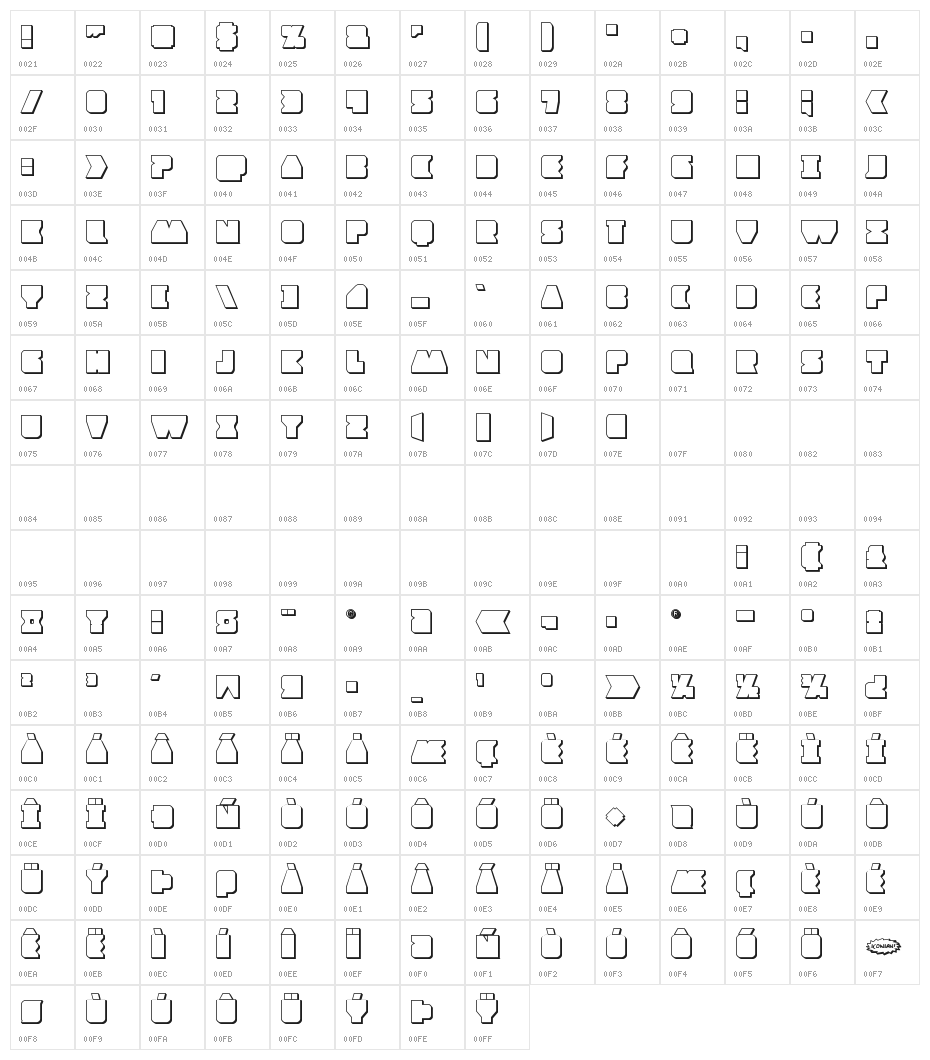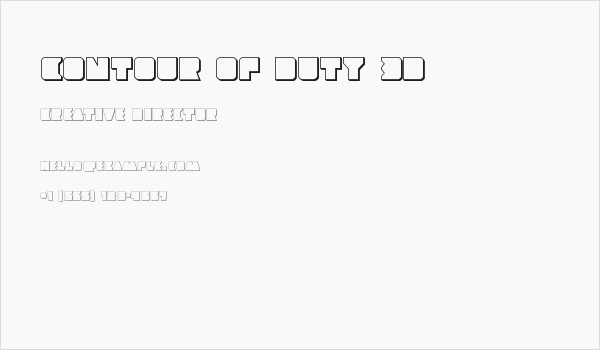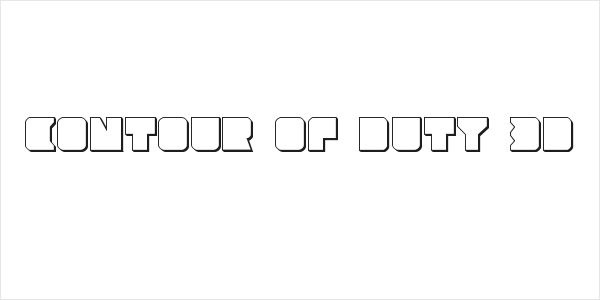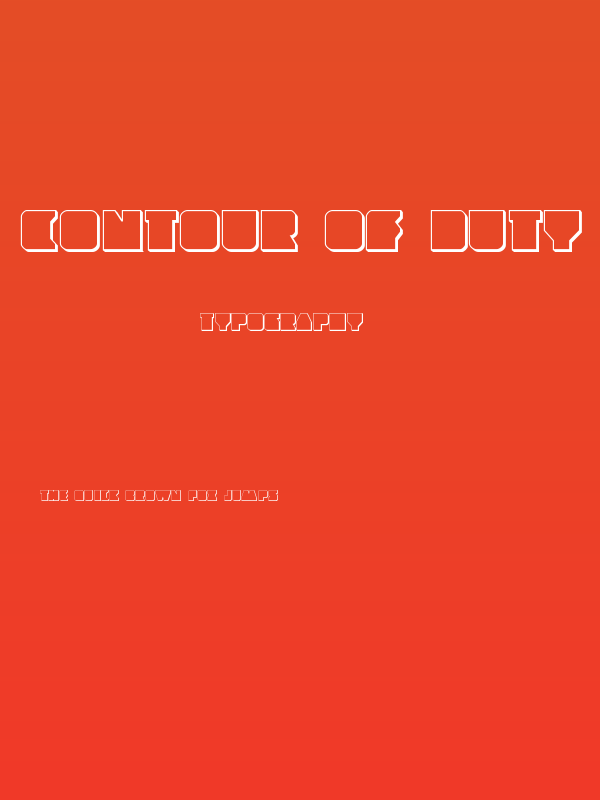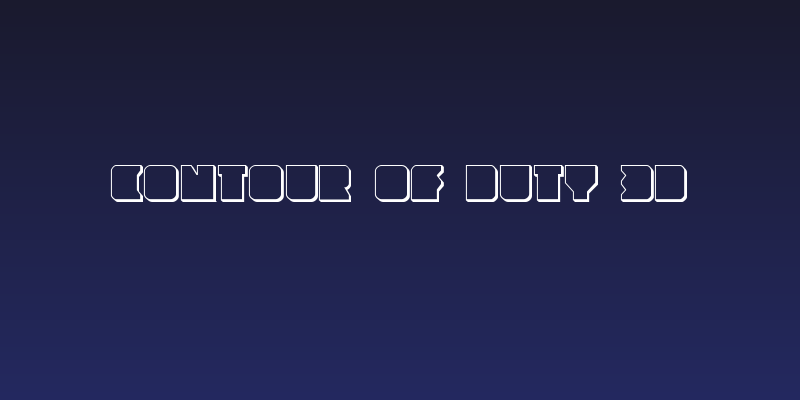
Contour of Duty 3D Font
Contour of Duty 3D Description
This font features a bold, geometric design with a three-dimensional effect that gives each character a distinct, blocky appearance. The letters are outlined with a thick black border, enhancing the 3D illusion and making them stand out prominently. The style is reminiscent of digital or video game aesthetics, with sharp angles and a futuristic vibe. The uppercase and lowercase letters maintain a consistent design, ensuring uniformity across the typeface. Numbers and special characters follow the same bold, outlined style, making them easily recognizable and cohesive with the alphabet. This font is ideal for projects that require a modern, tech-inspired look.
| Proposed Projects | Ideal for video game titles, tech-themed posters, digital media, and branding that requires a modern, edgy look. |